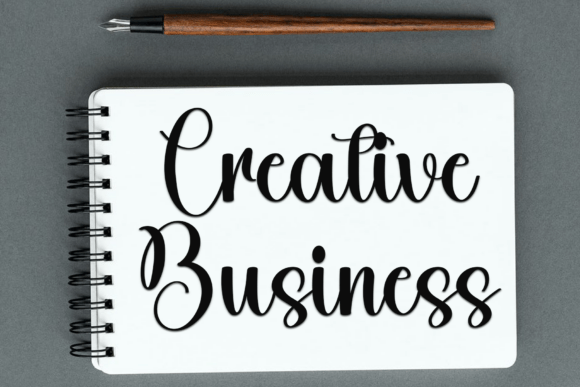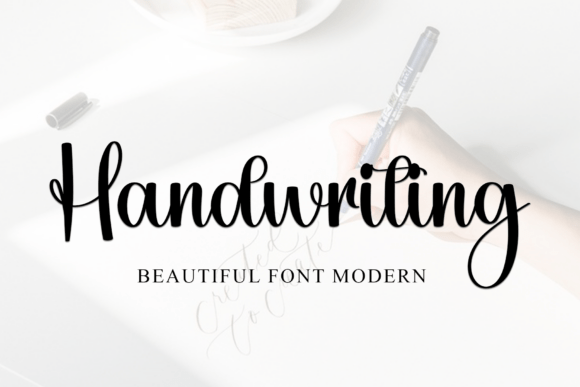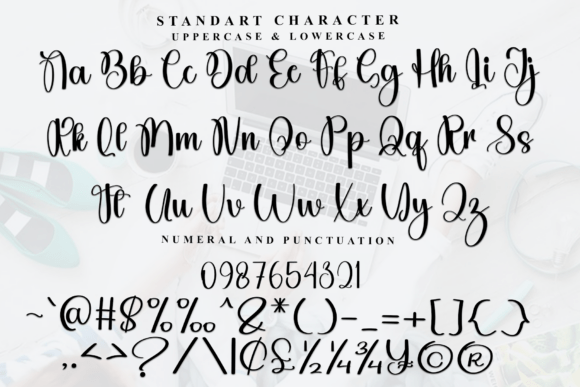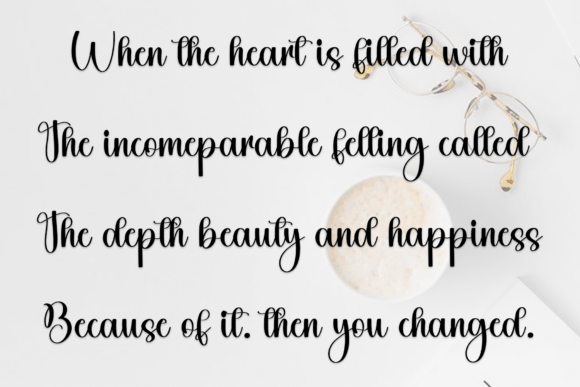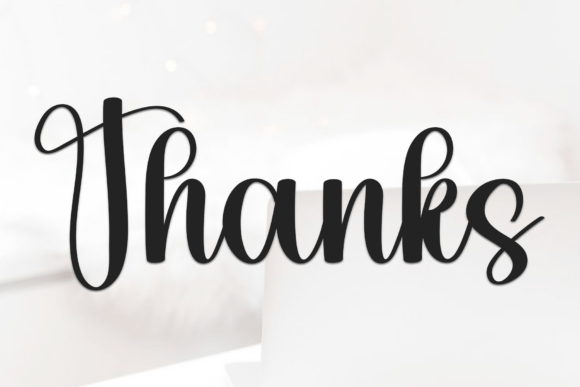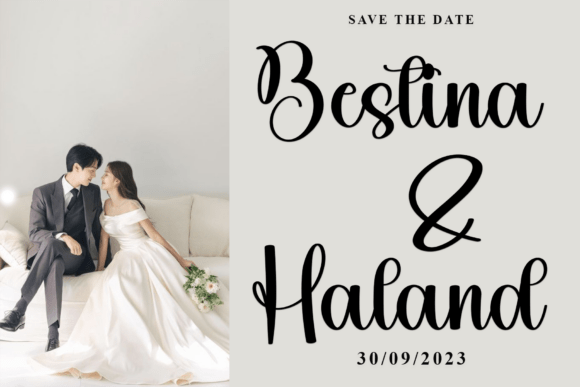
Introduction to Magnolia Forever Font
Have you ever stumbled upon a font that stops you in your tracks, making you think, “This is the one”? That’s exactly what happened to me when I discovered the Magnolia Forever Font. Its soft, unique strokes and distinctive character captivated me, and I knew I had to learn more. This enchanting font is more than just a pretty face; it’s a versatile design resource that can elevate your creative projects and make them truly unforgettable.
Key Features of Magnolia Forever Font
- Unique, elegant script font ideal for creative projects and design resources.
- Perfect for use in various design applications, including invitations, signage, and wedding stationery.
- Unique characteristics include flowing connections between letters and a soft, cursive style that adds a touch of elegance to any design.
Honest Review: Magnolia Forever Font
One of the standout features of this font is its versatility. It can be used for a wide range of design projects, from elegant invitations to modern logos. The high quality of the font is evident in its crisp lines and smooth curves.
- ✨ High quality design that looks great on any background
- ⚠️ Limited customization options may not be ideal for designers who like to get creative with their fonts
- ⚠️ Some users may find the font to be a bit too ornate for certain design projects
Overall, I’m really impressed with the Magnolia Forever Font and I would definitely recommend it to designers looking for a high-quality design resource for their creative projects.
Magnolia Forever Font
The Magnolia Forever Font is a high-quality design resource that can elevate your creative project to the next level. With a transparent background, this font is perfect for any design project that requires a touch of elegance and sophistication.
To get the most out of the Magnolia Forever Font, try combining it with other high-quality design resources, such as graphics and illustrations. This will help to create a cohesive and visually appealing design.
The Magnolia Forever Font is perfect for a variety of design projects, including:
Branding and marketing materials
Editorial and publishing projects